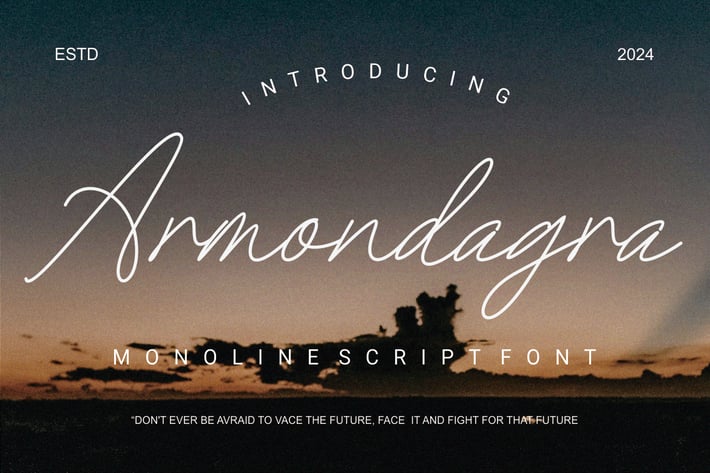
Armondagra - Monoline Scrift Font
cozzdesign
Introducing our new product Armondagra - Monoline Scrift Font Modern Font
Armondagra - Monoline Scrift Font - Modern Font is a bold and authentic display font. The font is suitable for any branding project like logo, t-shirt printing, esport, and many more. outstanding in a wide range of contexts.